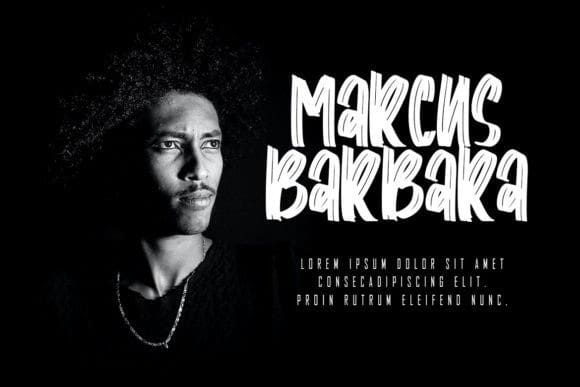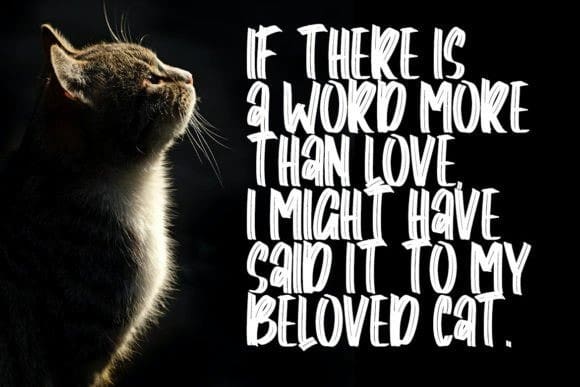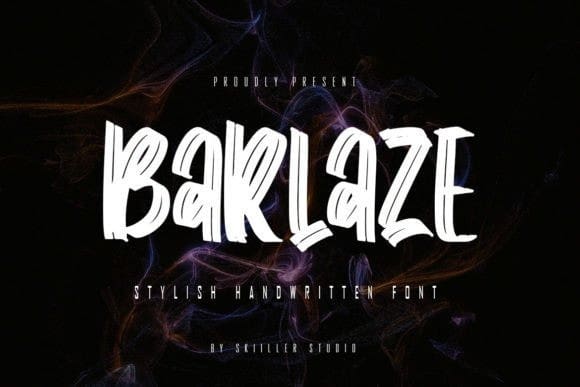
Barlaze Brush Font
Barlaze Brush Font is an eye-catching font that stands out with its unique, handwritten look. Its bold curves, loops, and varying line widths create a dynamic, expressive style that’s sure to make your text pop.